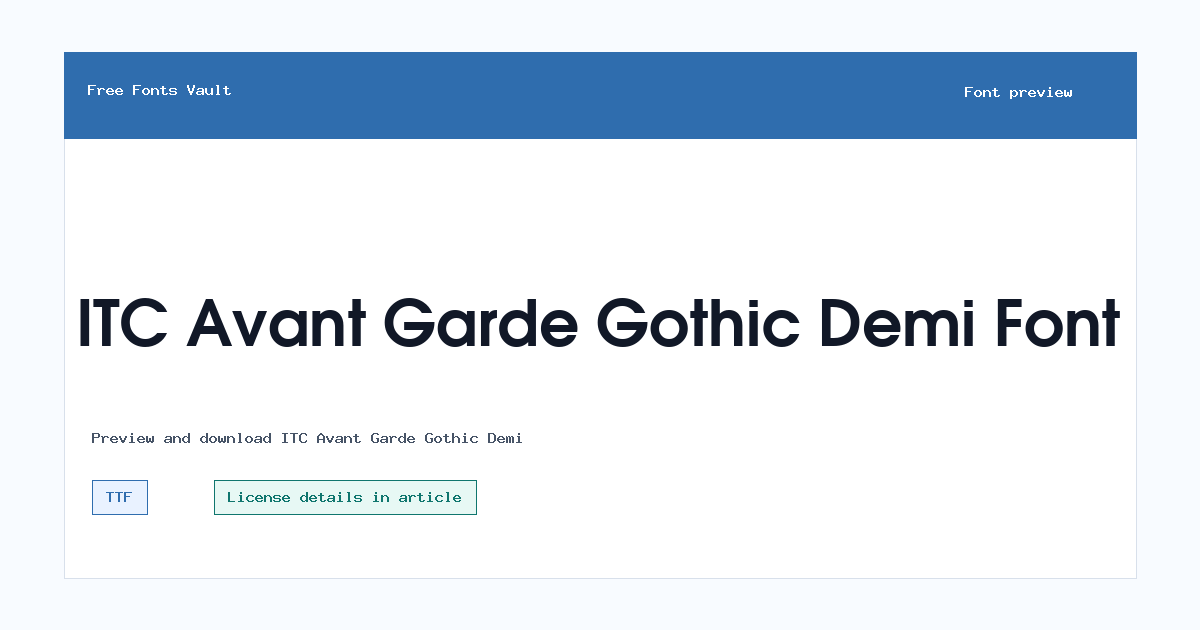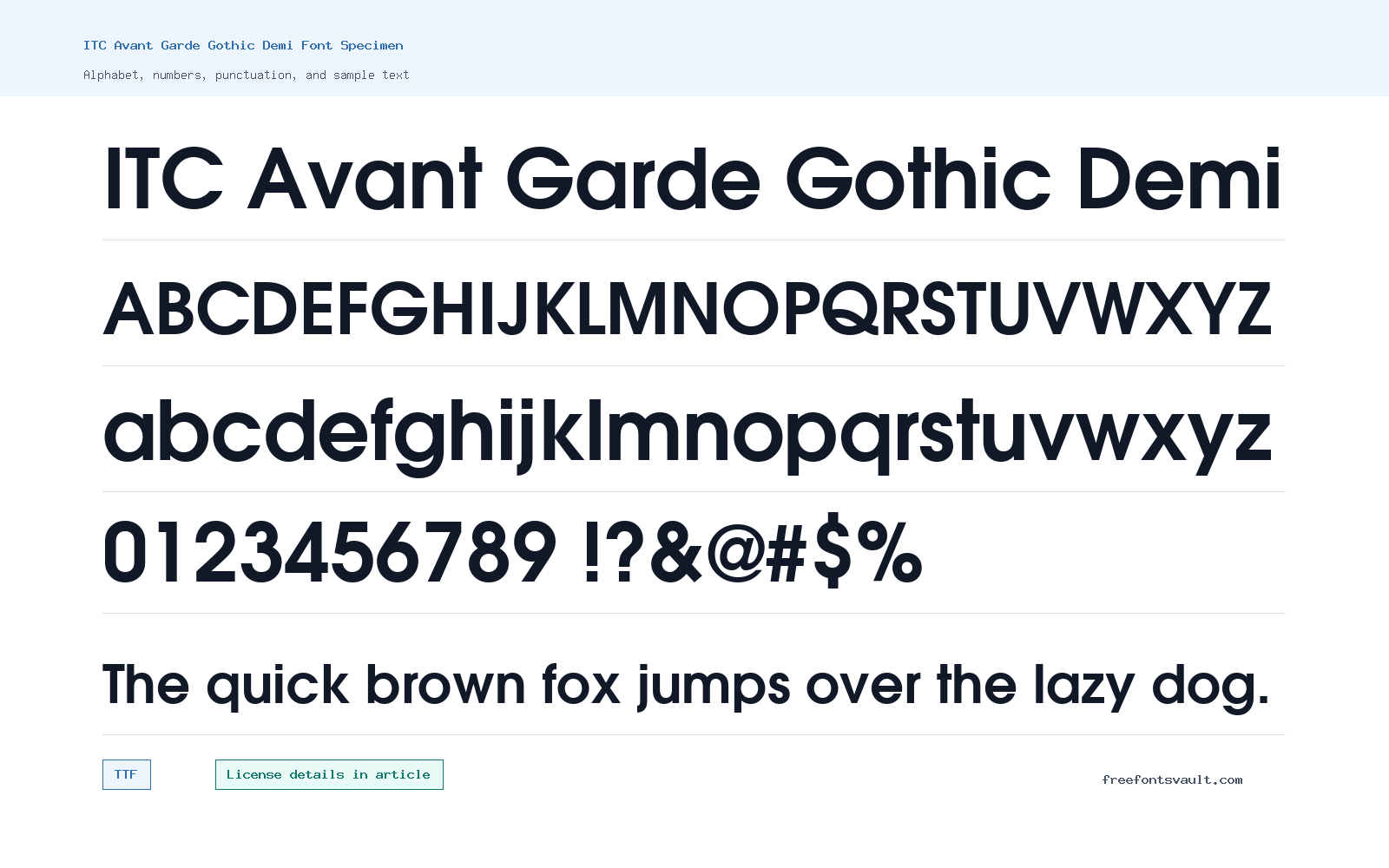
ITC Avant Garde Gothic Demi
ITC Avant Garde Gothic Demi font.
ITC Avant Garde Gothic Demi is a single TTF sans serif style for testing clean, firm display text before downloading.
About ITC Avant Garde Gothic Demi
This page is best treated as a practical preview for the TTF file named itc-avant-garde-gothic-demi.ttf. The style is listed as normal, regular, and 400 weight, so the download should be judged as one static font file rather than a complete multi-weight family. Use the live preview to test whether the spacing, letter shape, and overall weight fit your actual design.
A demi-style sans serif can be useful when regular text feels too light but a heavy weight feels too strong. Try it in short headlines, page titles, labels, menus, poster lines, and brand-direction mockups. Keep the test phrase realistic: type the real name, product line, headline, or button label you plan to use, then check uppercase words, lowercase words, numbers, and punctuation.
- Clean sans serif direction suited to short headings, labels, and mockups.
- Best judged with custom preview text because only one variant is listed.
- Headlines, title cards, posters, and short display text.
- Menu labels, buttons, badges, and interface mockups.
- Typography comparisons where a firm sans serif is needed.
- Pairing with a quieter reading font for paragraphs and supporting copy.
Preview your own words before downloading. Test all-caps words, mixed-case titles, numbers, punctuation, and tight pairs such as AV, TA, To, and Yo. If the text will be small or long, compare it with a lighter body font so readability does not suffer.
What is this font best used for?
Start with short display uses such as headings, labels, posters, title cards, buttons, and mockups.